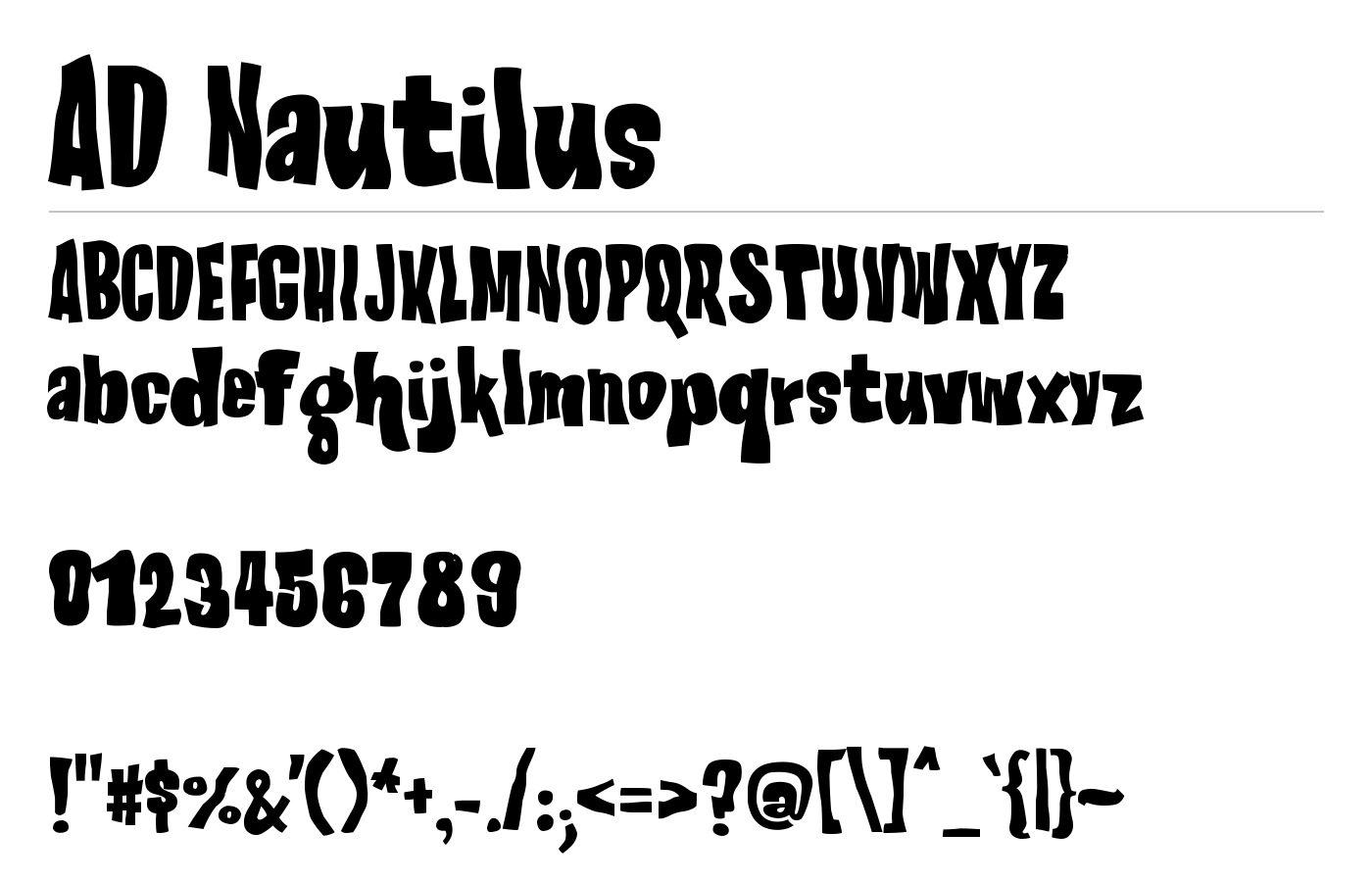
AD Nautilus is a bold, playful sans serif font with a quirky, slightly irregular shape that gives it a hand-crafted, lively feel. Its thick strokes and uneven letterforms make it stand out with strong personality, ideal for fun, informal designs needing a touch of creativity. This font works great for eye-catching headlines, posters, or branding that wants to express energy and uniqueness.
AD Nautilus Font
About AD Nautilus Font
| Designer | Alex Dukal |